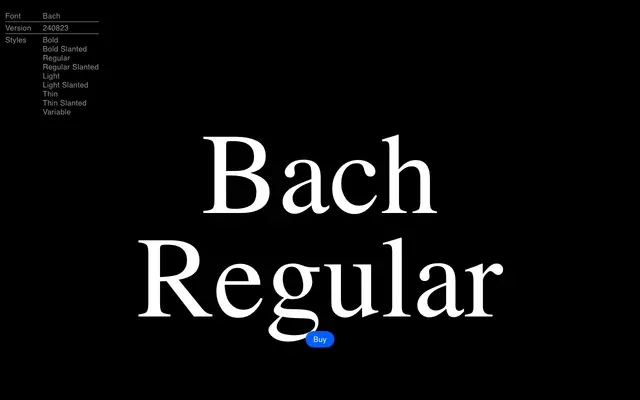
Bach
EPI · 2024
A contemporary grotesque drawn from early 20th century sources, balancing formal elegance with approachability across four weights and a variable axis.
Bach Grotesk revisits the pre-Helvetica grotesque tradition, aiming for a middle ground between rigidity and playfulness. The family runs from Thin to Bold, each with a slanted companion, and is also available as a variable font. Latin Extended character support covers a broad range of Western European languages, with small caps and case features included.
Described explicitly as a reinterpretation of early 20th century grotesque typefaces, placing it firmly in the grotesque sans-serif tradition alongside historical references to Helvetica-era and pre-Helvetica designs.